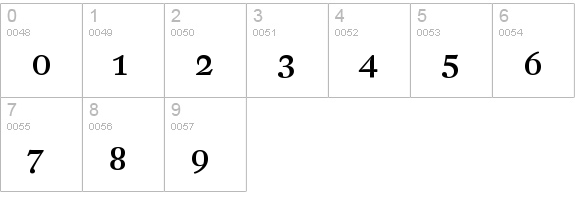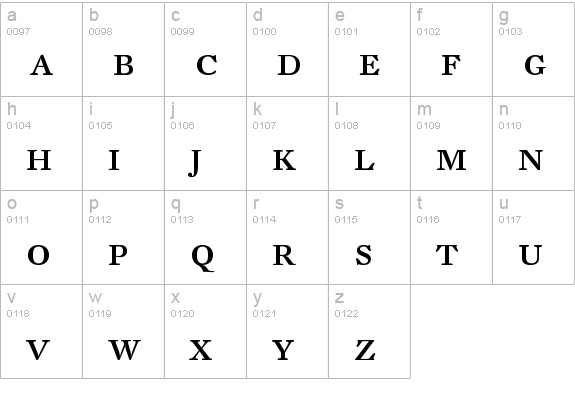
DTL Fleischmann T Regular Caps is the standard, neutral variant in the DTL typeface family \xE2\x80\x94 well suited to general body text, paragraphs, and standard typographic work.
DTL Fleischmann T Regular Caps is a timeless and versatile font that exudes elegance and sophistication. With its clear and classic design, this serif typeface is perfect for a wide range of projects, from editorial layouts to branding materials. The balanced proportions and clean lines of the characters make it easy to read and visually appealing. This font is available for free download at FontsMarket.com, making it accessible to designers and creatives looking to elevate their work with a touch of refinement. Whether you're designing a logo, creating a magazine layout, or crafting a poster, DTL Fleischmann T Regular Caps will add a touch of sophistication to your project. Its versatility and timeless appeal make it a must-have font in any designer's toolkit.